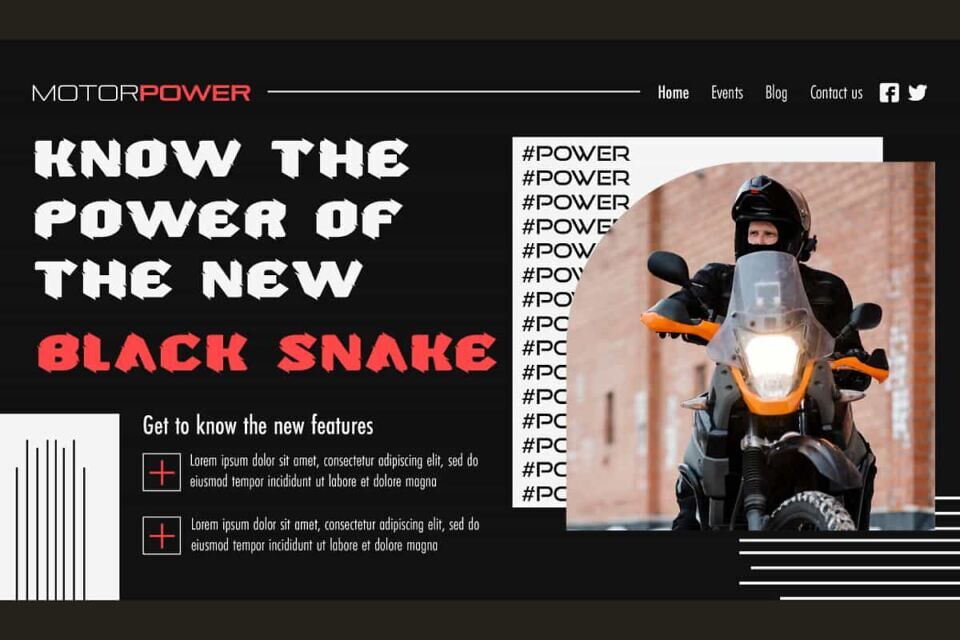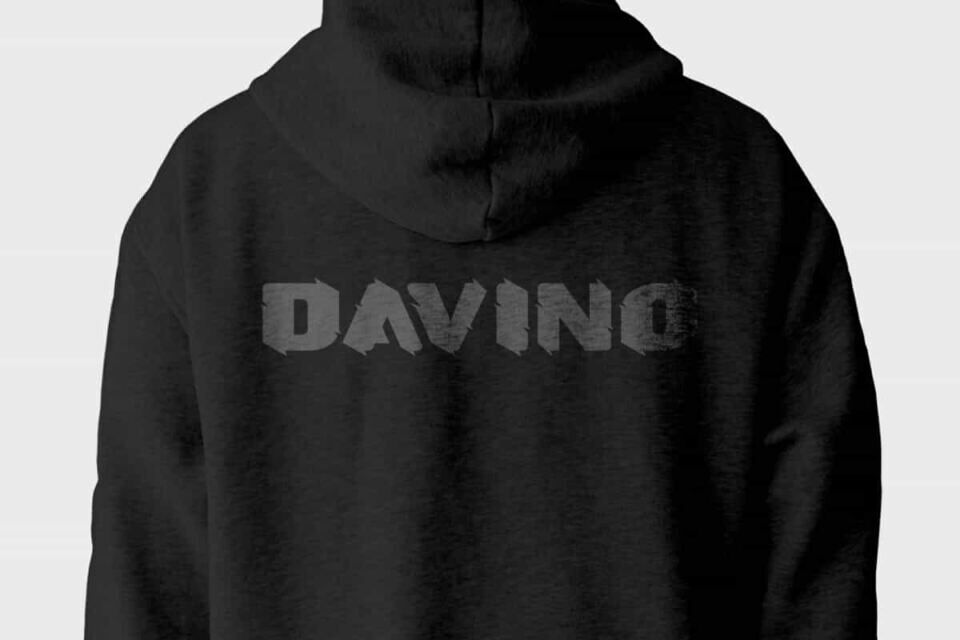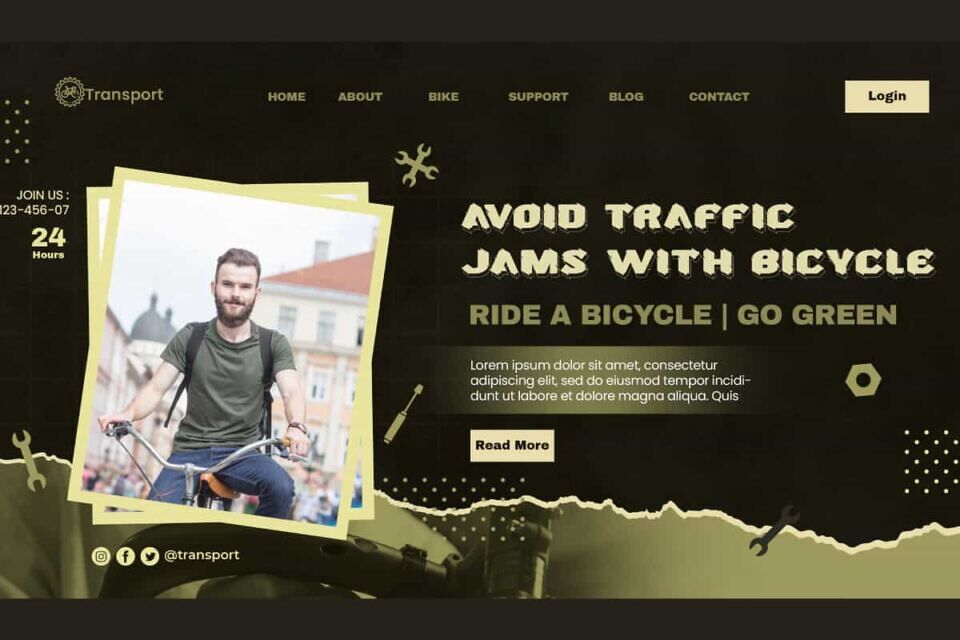
Global Race Font is a rough racing themed font with a strong charm, created by NoahType. This font has a bold and unique shape, and its concept fits the automotive theme. This font will be suitable for a lot of projects, such as custom design, signage, label, business card, catalog, cover, poster, quotes, website, and more!
Global Race Font includes full set of Uppercase and Lowercase Basic Characters, Numerals and Punctuation. This font has an attractive appearance that will make you believe it is the perfect choice for many industries, such as sports, racing, game, automotive, advertisement, café, event organizer, fashion, printing, publishing, etc.